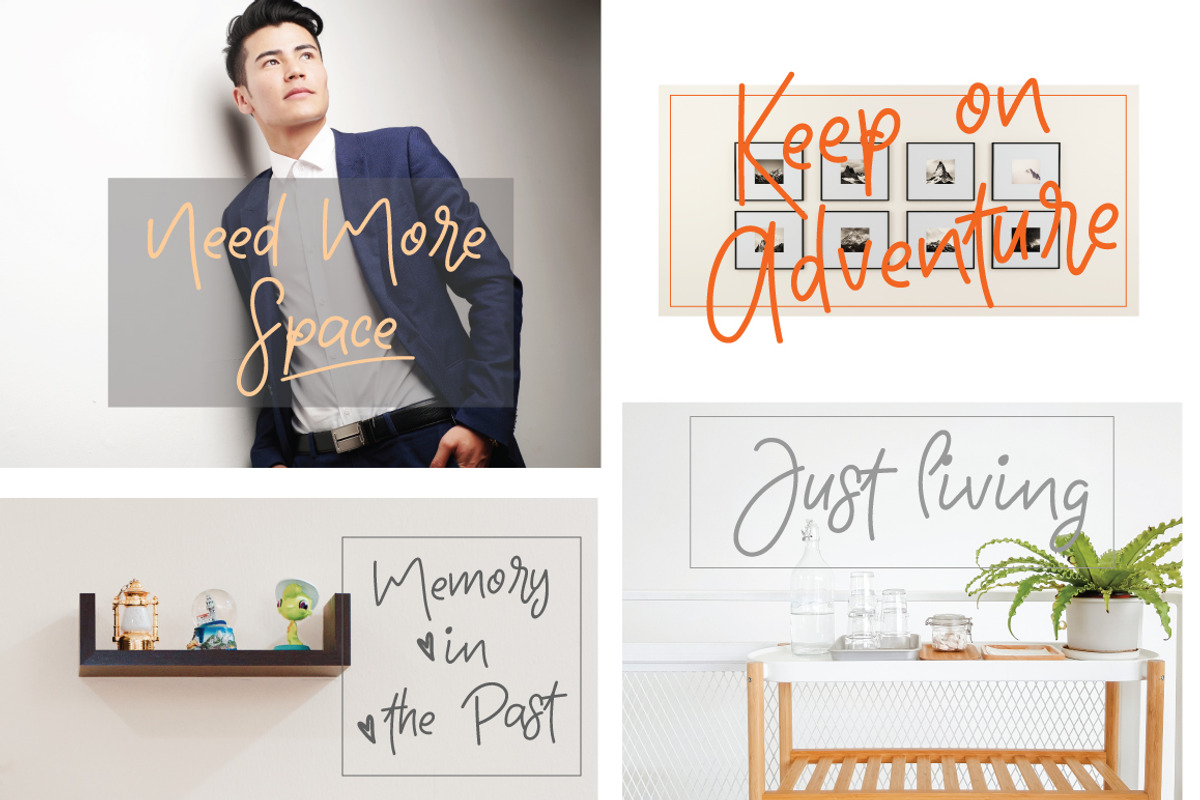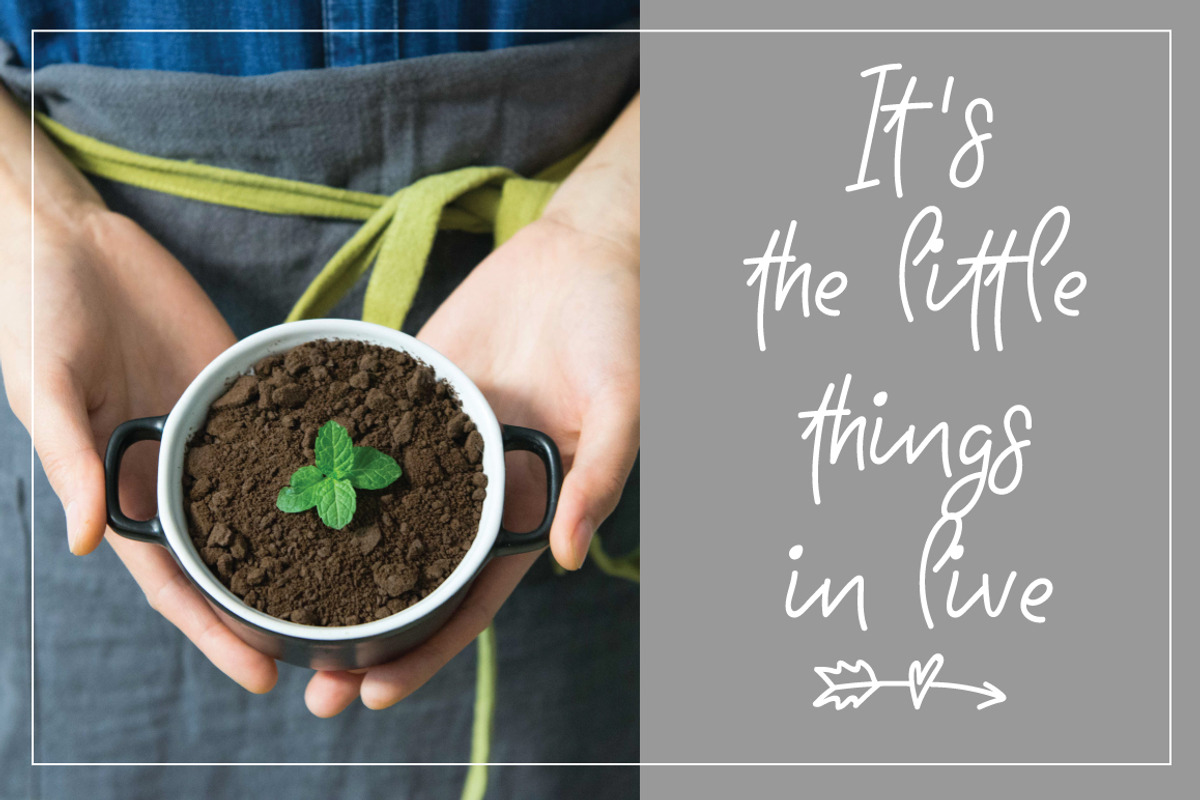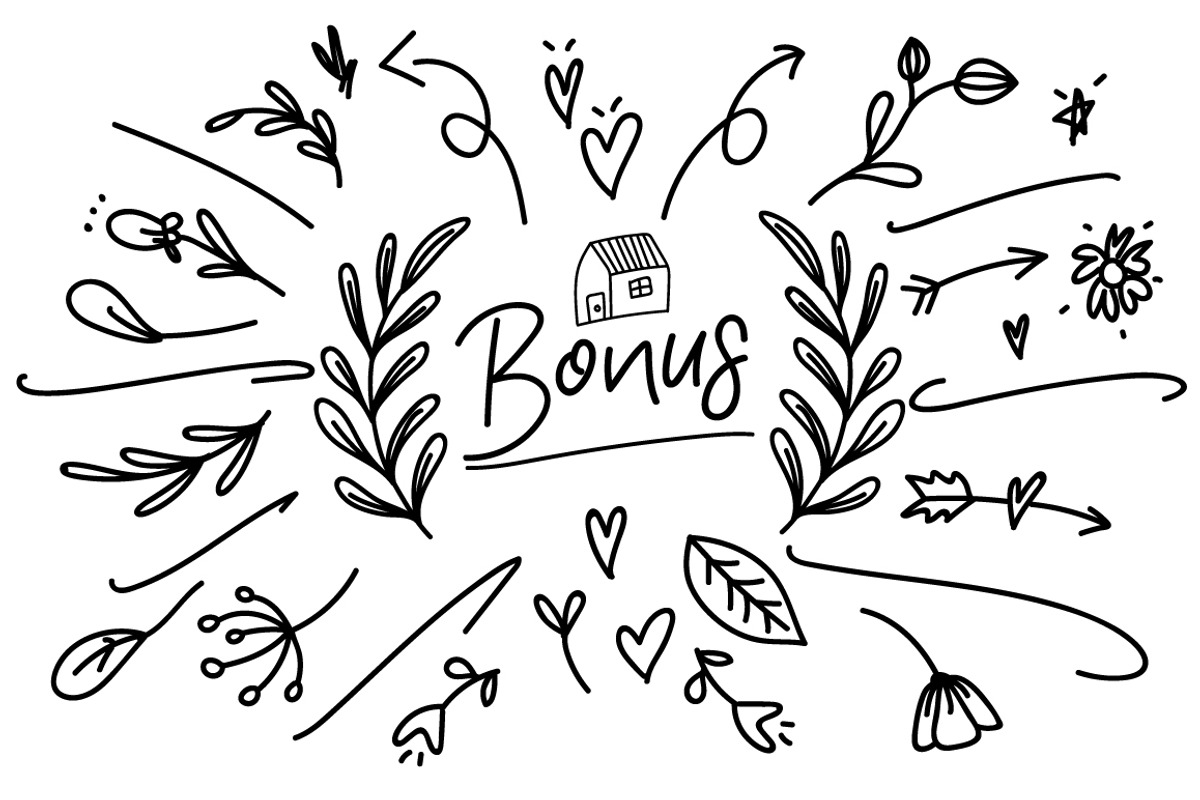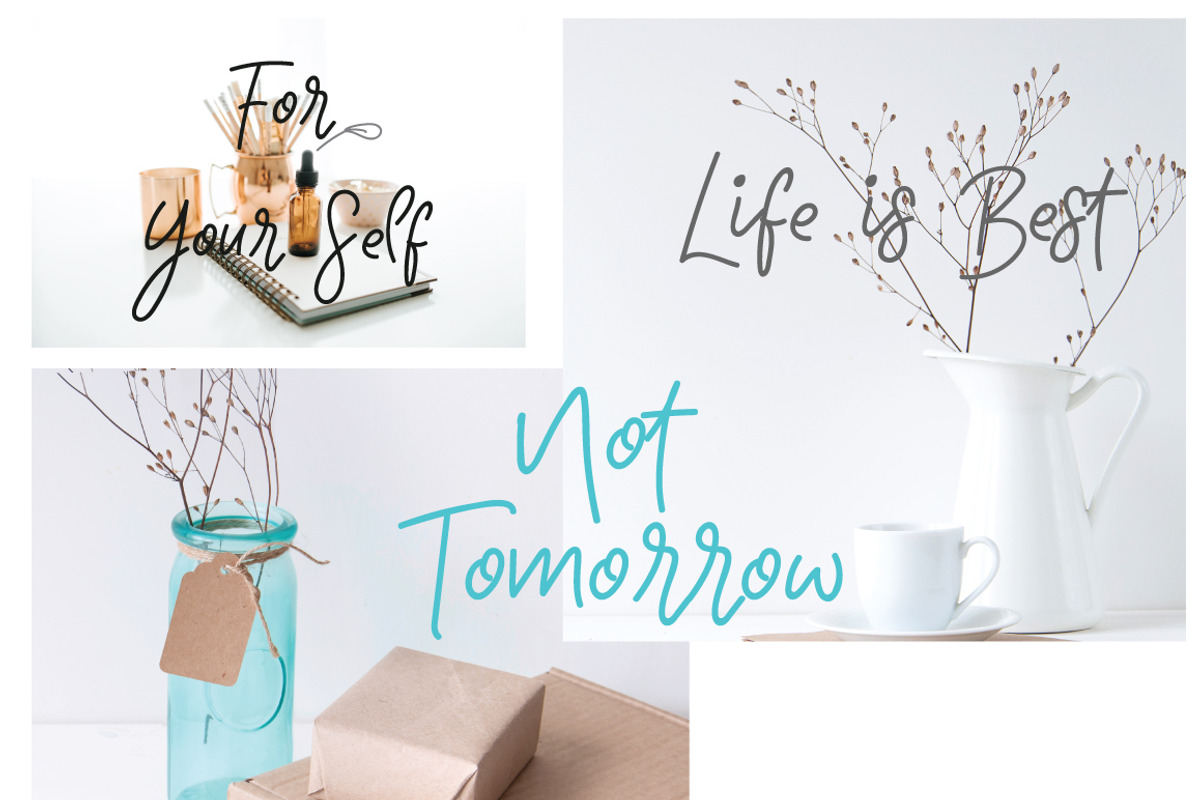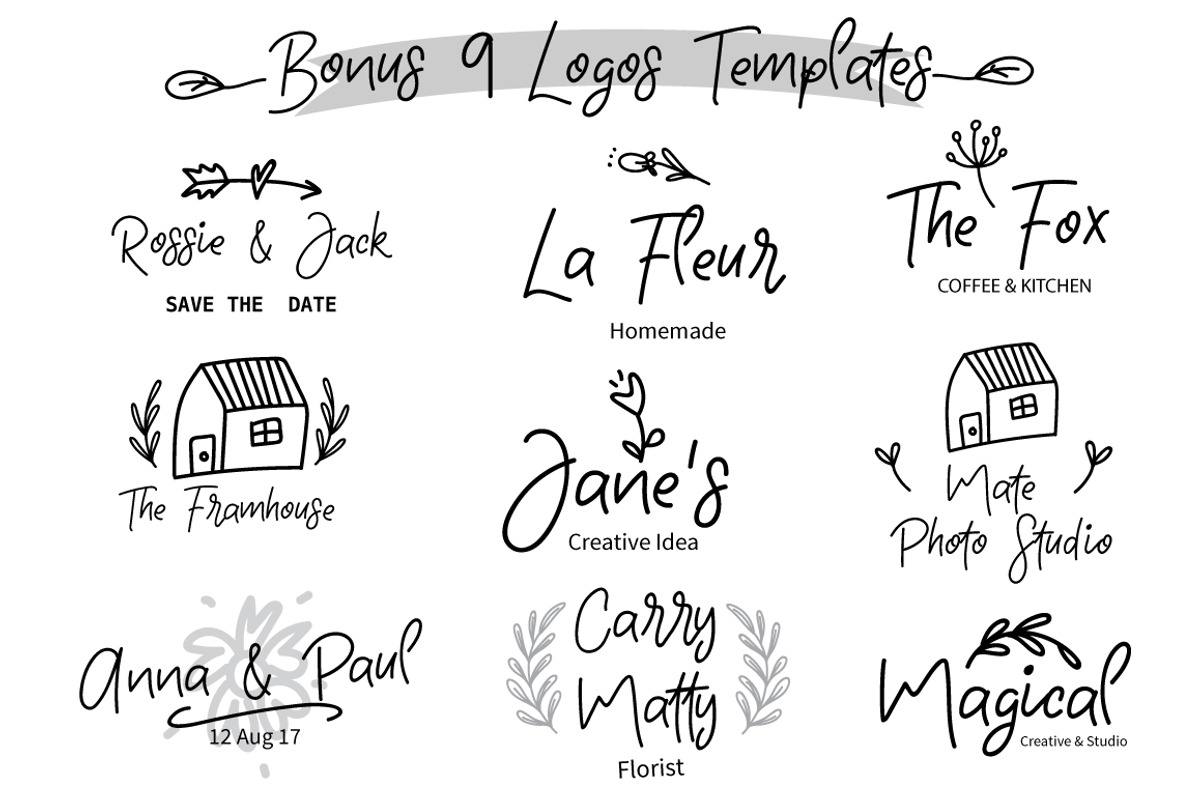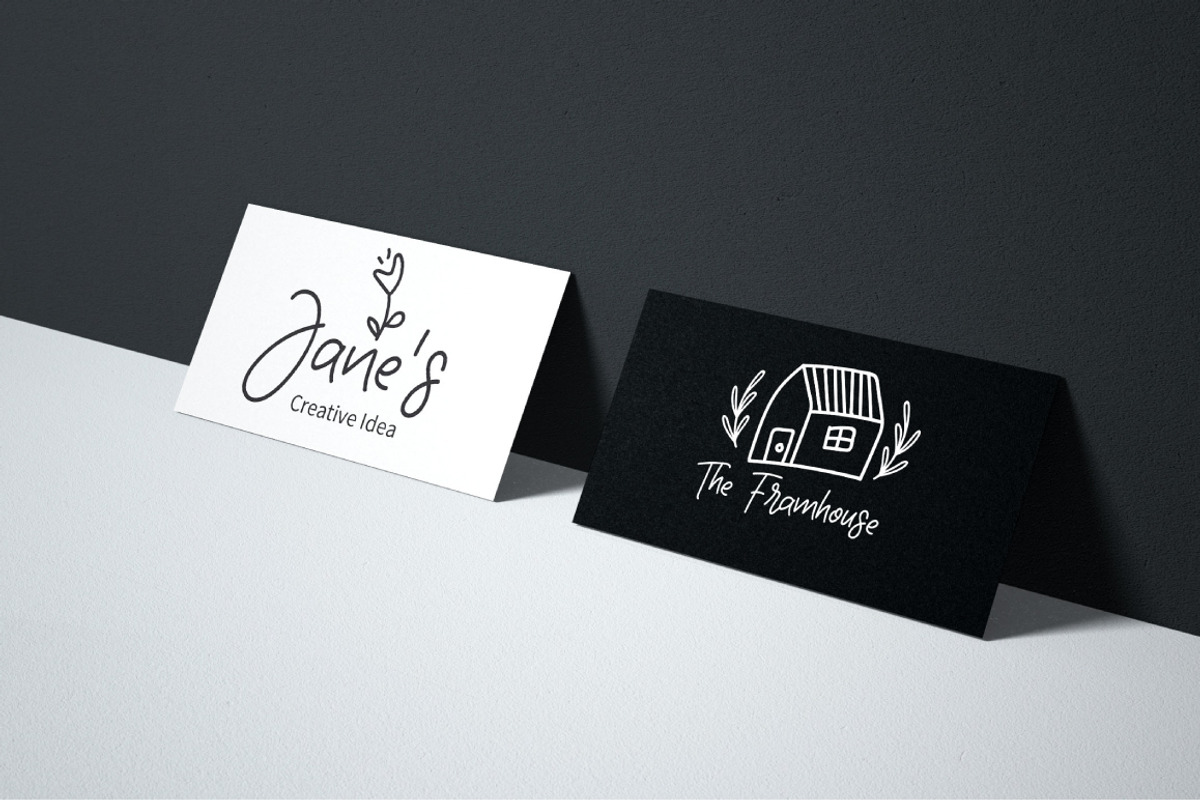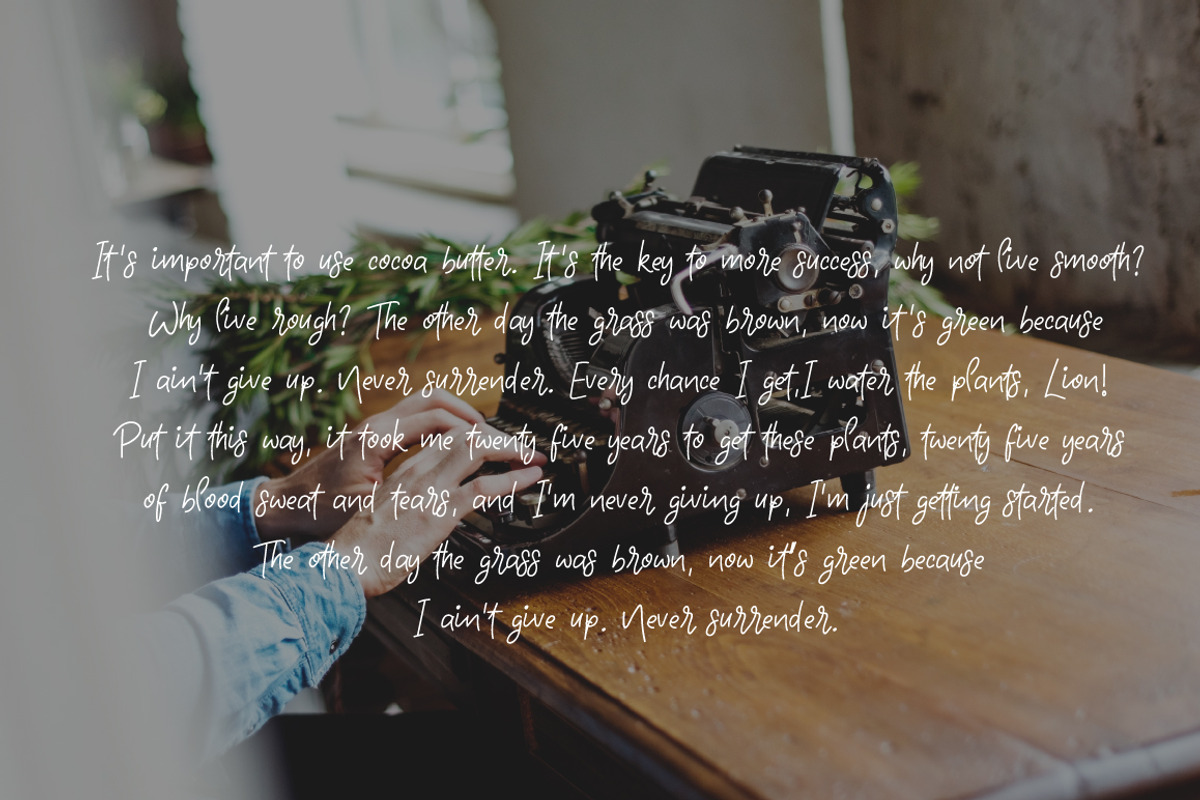
Trust me | Handwritten Font & 9Logos
It is a signature font with a multitude of letter variations to make that perfect and unique design.
This font is perfect for wedding invitation or your blog. Also with their help, you can create a logo or beautiful frame for your home. Or just use for your small business, book covers, stationery and more.